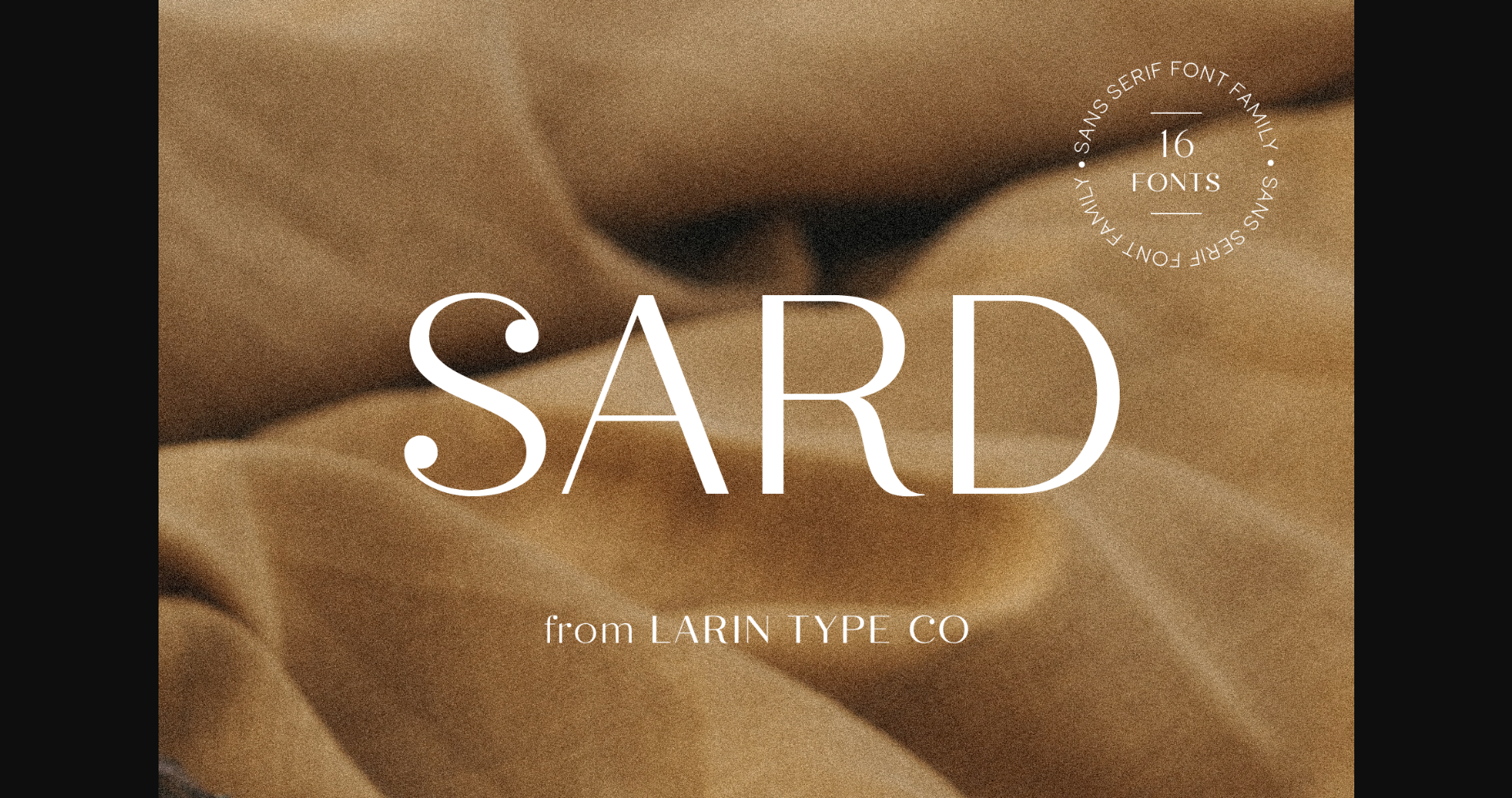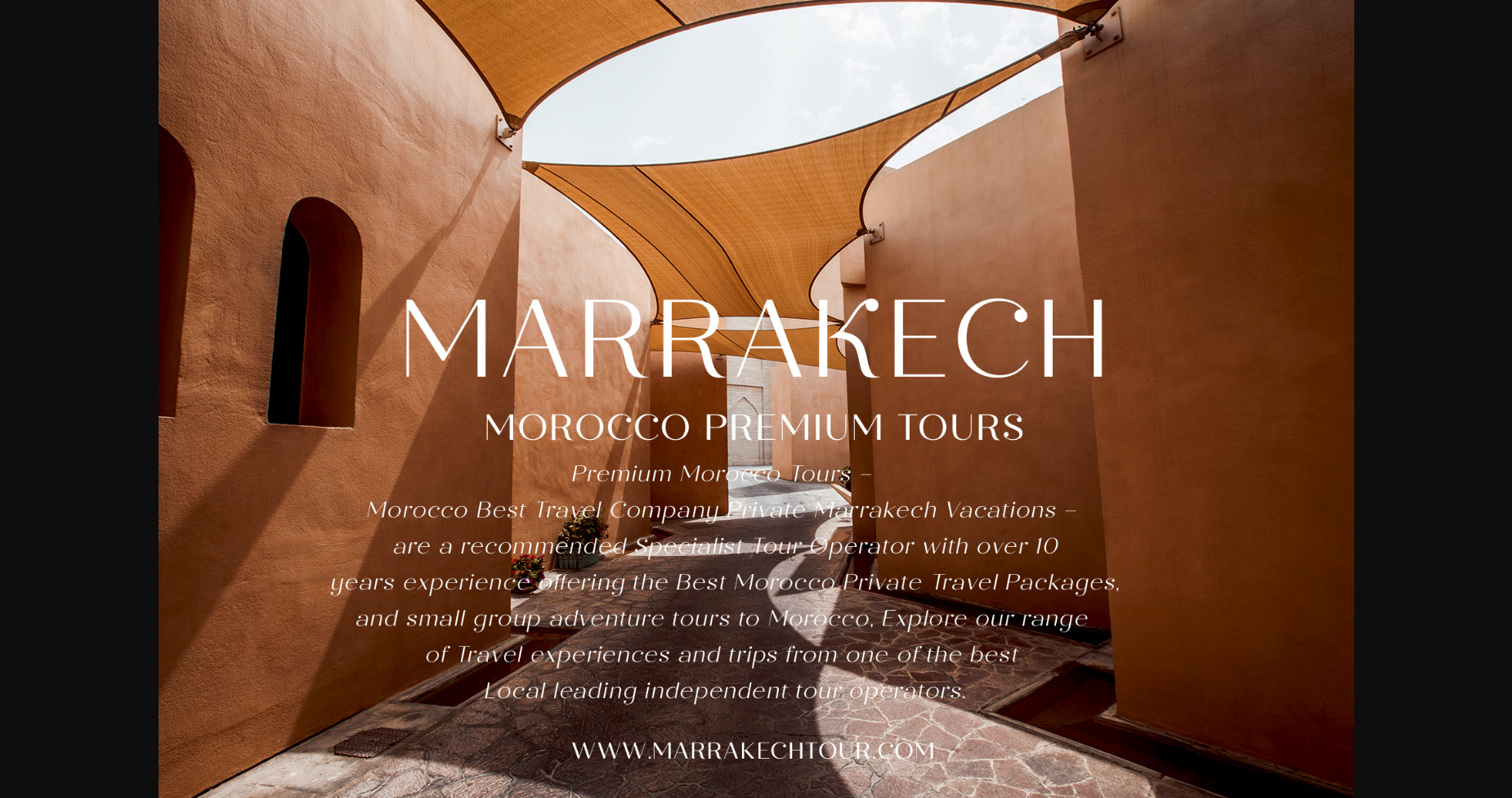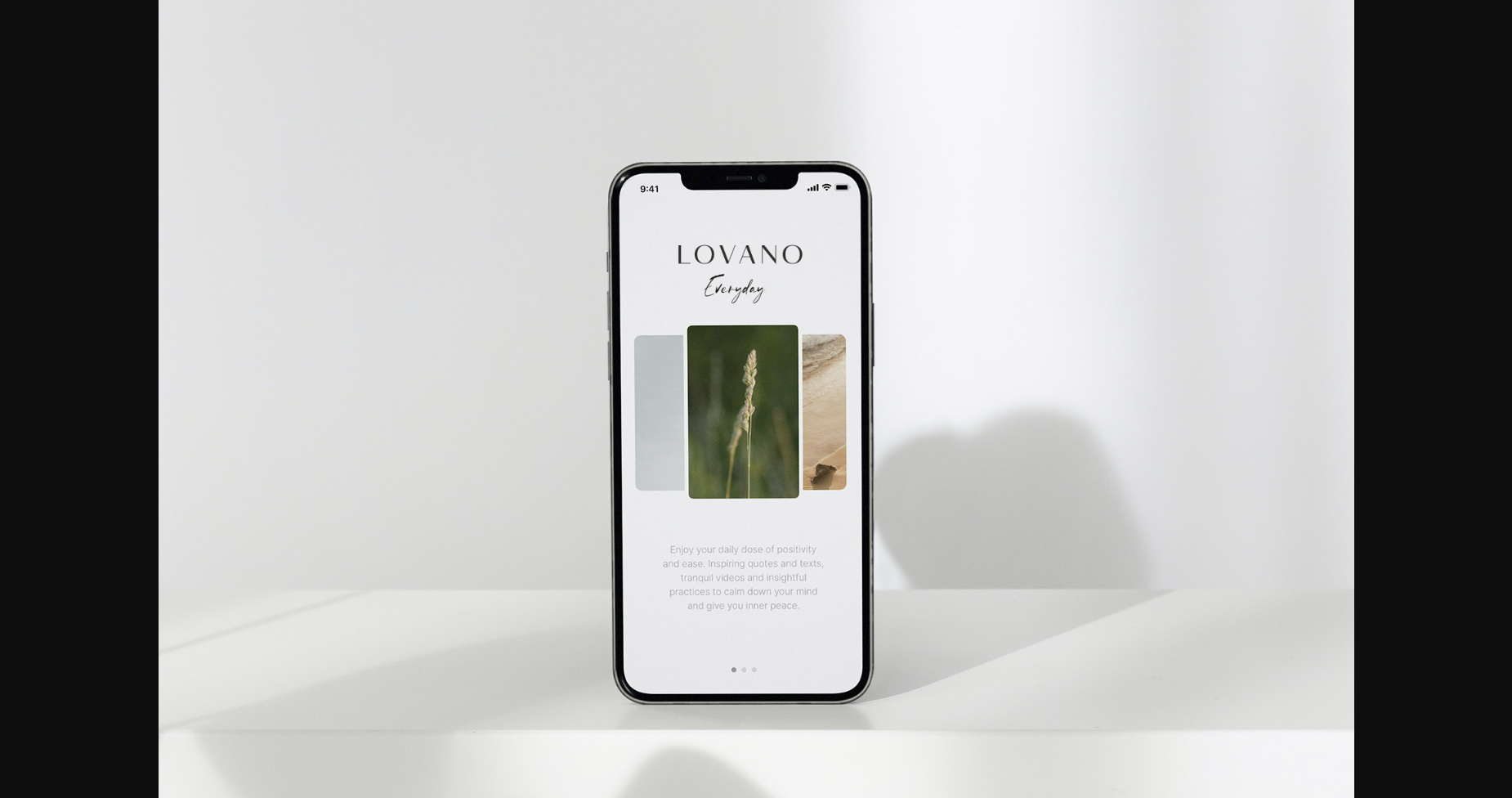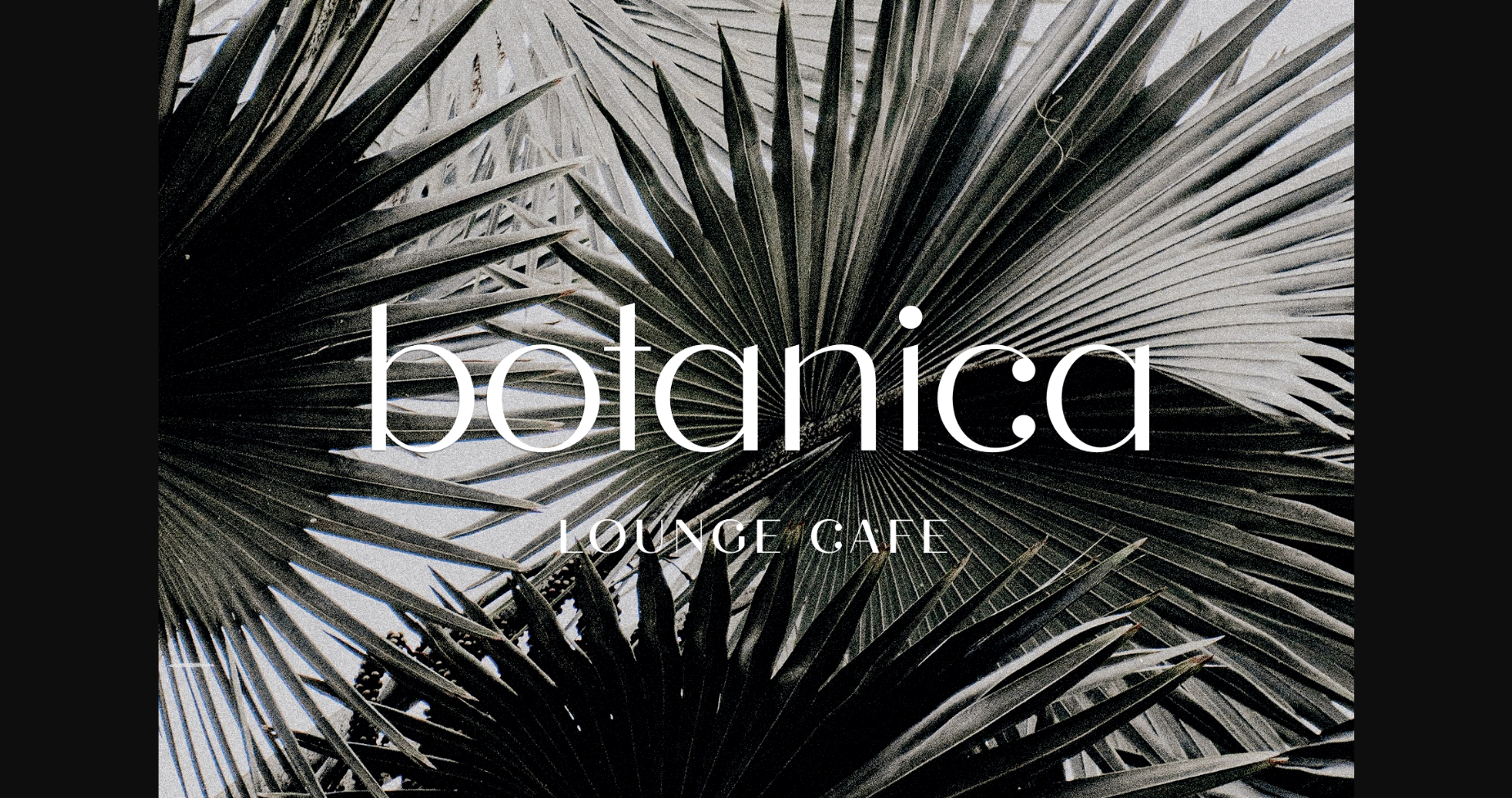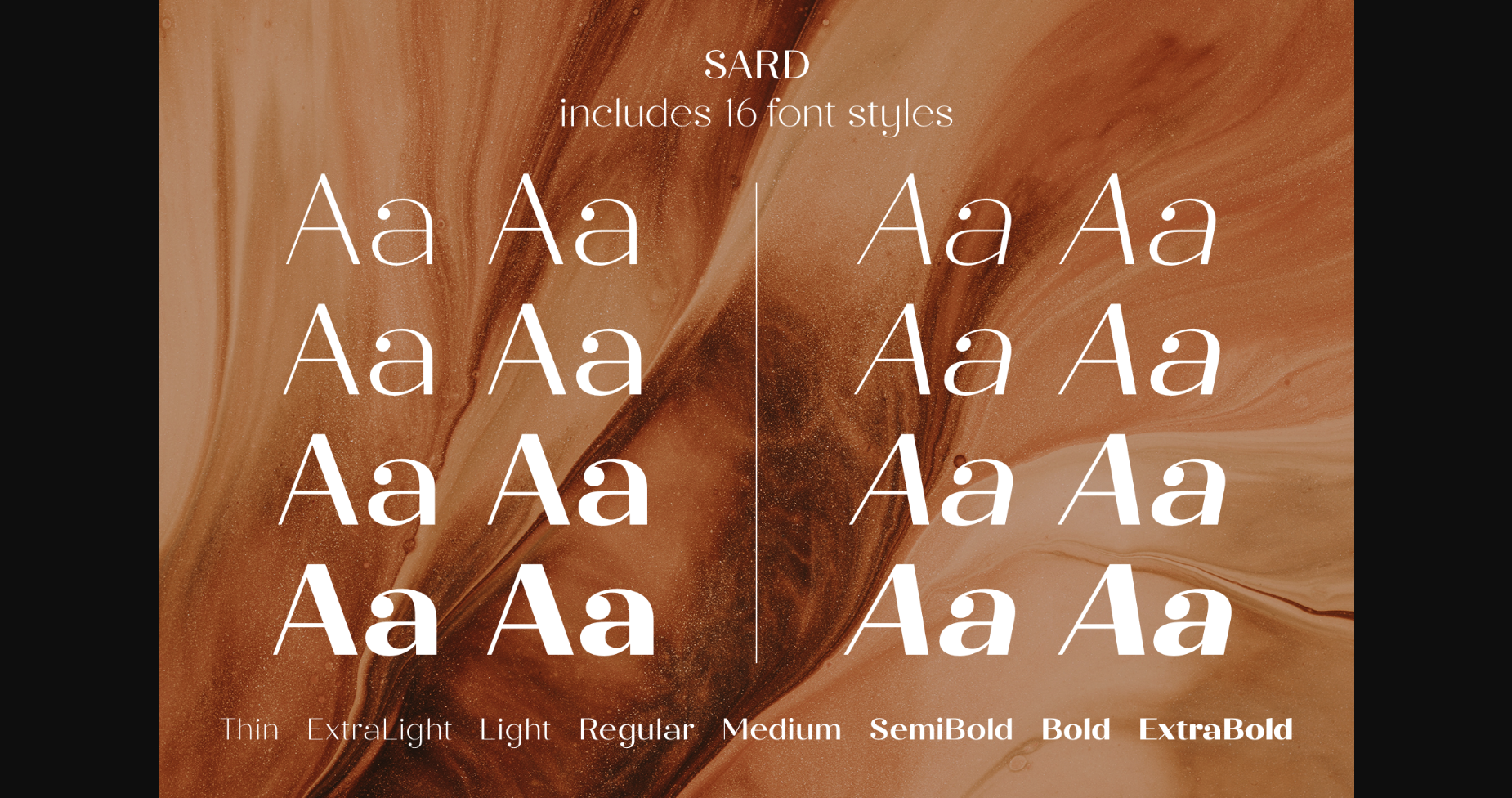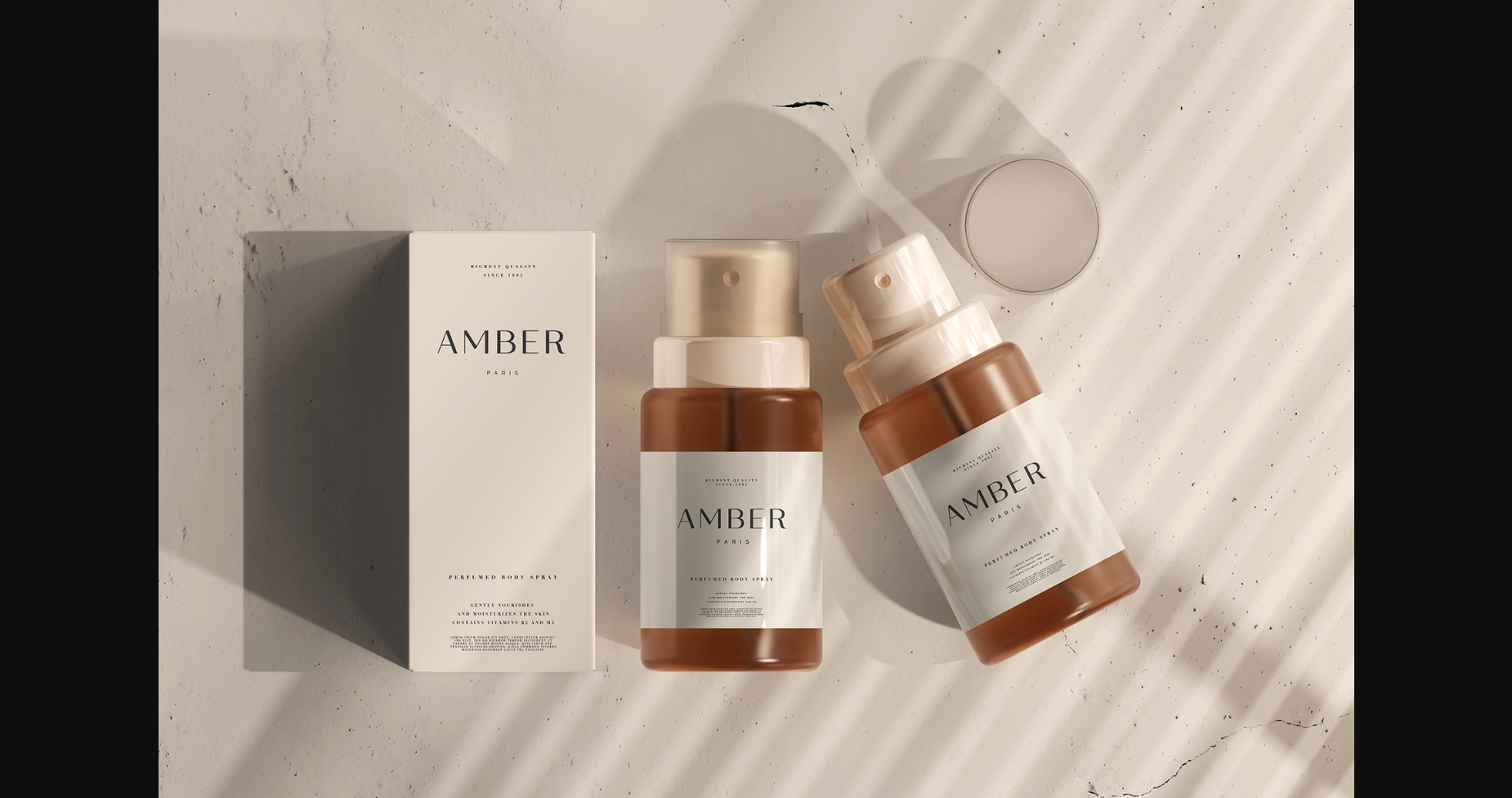
About Sard Font
Sard is a modern and sleek sans-serif font designed for maximum readability and legibility. With its clean and cruise lines, Sard is perfect for any project that requires a professional and sophisticated look. Its minimalistic design is versatile and can be used in a variety of settings, from business documents to branding and marketing materials.